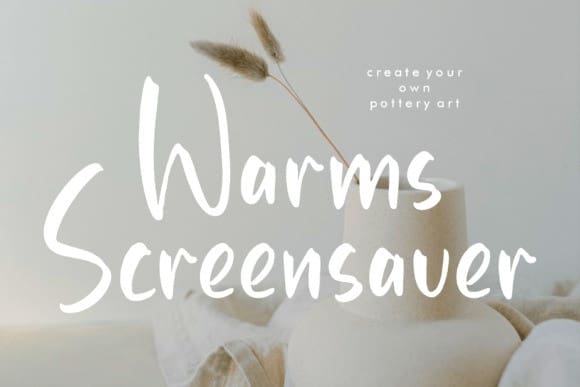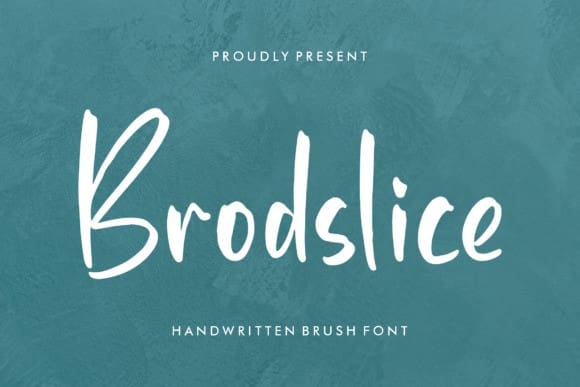
Brodslice Font
Brodslice Font is a beautiful handwritten font suitable for any project such as logos, branding projects, homeware designs, product packaging, mugs, quotes, posters, shopping bags, t-shirts, book covers, name cards, invitation cards, greeting cards, label, photography, watermark, special events, and all your other lovely projects that need a beautiful script touch.